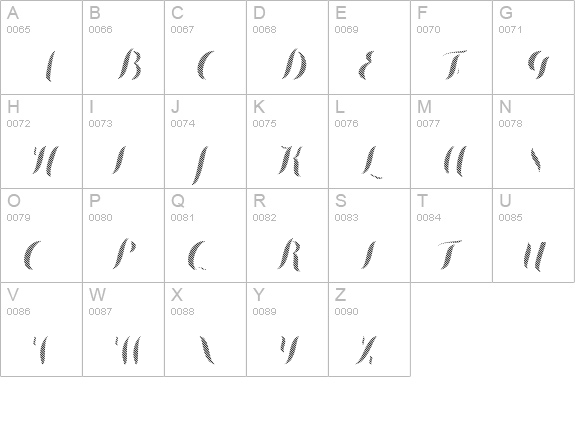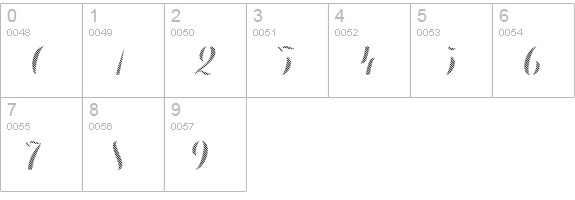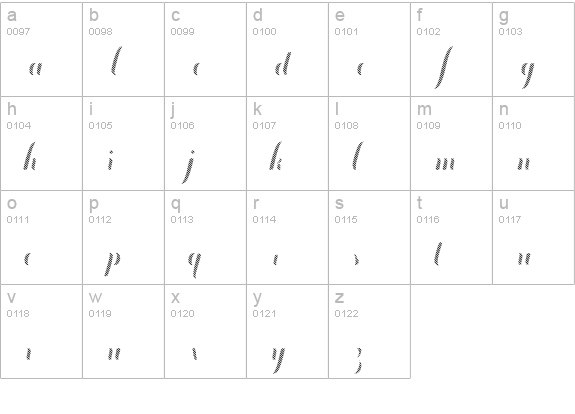
Chameleon Fill Stripe3 font is a unique and eye-catching display typeface that combines elements of modernity and playfulness. Its distinctive striped design gives it a dynamic and energetic look, perfect for grabbing attention in any design project. This font is versatile and can be used for a variety of purposes, from branding to advertising to digital art. What sets Chameleon Fill Stripe3 font apart is its ability to adapt and change just like its namesake reptile. The characters seem to shift and blend seamlessly, creating a mesmerizing effect that is sure to captivate viewers. Whether used in headlines, posters, or social media graphics, this font will make a bold statement and leave a lasting impression. Best of all, Chameleon Fill Stripe3 font is completely free to download at FontsMarket.com. This means that you can add this striking typeface to your collection without any cost, making it an excellent choice for designers on a budget. Don't miss out on the opportunity to enhance your projects with the captivating charm of Chameleon Fill Stripe3 font.